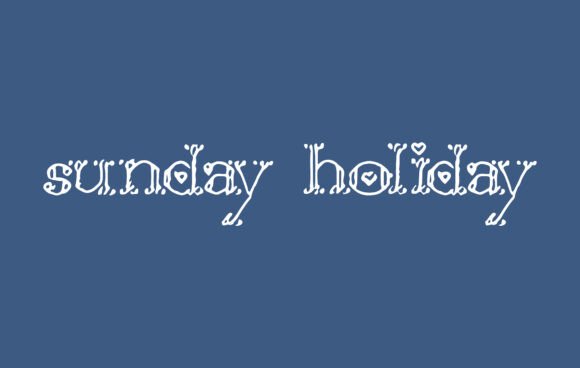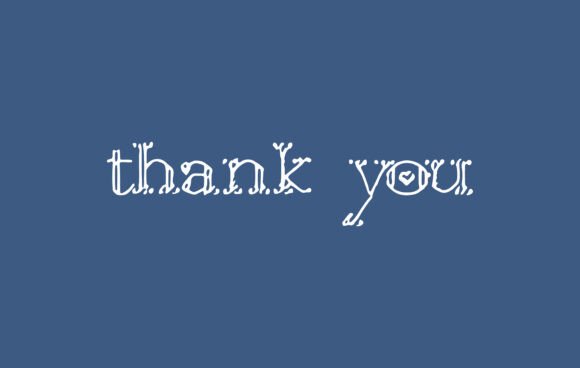
The Catch: Discovering the Charm of Fish and Chips Font
I still remember the design project that led me to discover the Fish and Chips font. I was working on a branding project for a quaint seaside eatery, and I was struggling to find the perfect font that captured the essence of their traditional yet playful vibe. That’s when I stumbled upon Fish and Chips, a delightful font that combines traditional serif forms with decorative whimsy. In this article, I’ll share my experience with this lovely font, its features, and how to make the most of it in your designs.
First Impressions: What I Love About Fish and Chips
Here’s what I love about Fish and Chips:
- ✨ Unique blend of traditional serif forms and decorative elements
- ✅ Mini motifs like hearts and hooks add a playful touch
- 🎉 Perfect for boutique eateries, seaside branding, or vintage menus
- 💻 Highly versatile and legible
While Fish and Chips is an excellent font, there are a few minor quirks to be aware of:
- ⚠️ Some decorative elements may not work well at very small font sizes
- 🤔 Limited language support, mainly suitable for English and Western European languages
The Story Behind Fish and Chips
Fish and Chips is a design creation inspired by the nostalgic charm of seaside eateries and vintage menus. The designer aimed to capture the essence of traditional British cuisine with a playful twist. By combining classic serif forms with decorative motifs, the font embodies the warmth and character of a seaside treat shop.
| What type of projects is Fish and Chips best suited for? | Fish and Chips is perfect for boutique eateries, seaside branding, vintage menus, and any design project that requires a touch of nostalgia and playfulness. |
| Does Fish and Chips support multiple languages? | Fish and Chips mainly supports English and Western European languages. If you need support for other languages, please check the font’s character set and compatibility. |
| Can I use Fish and Chips in both print and digital designs? | Absolutely! Fish and Chips is a versatile font suitable for both print and digital designs, from menus and signage to social media graphics and websites. |